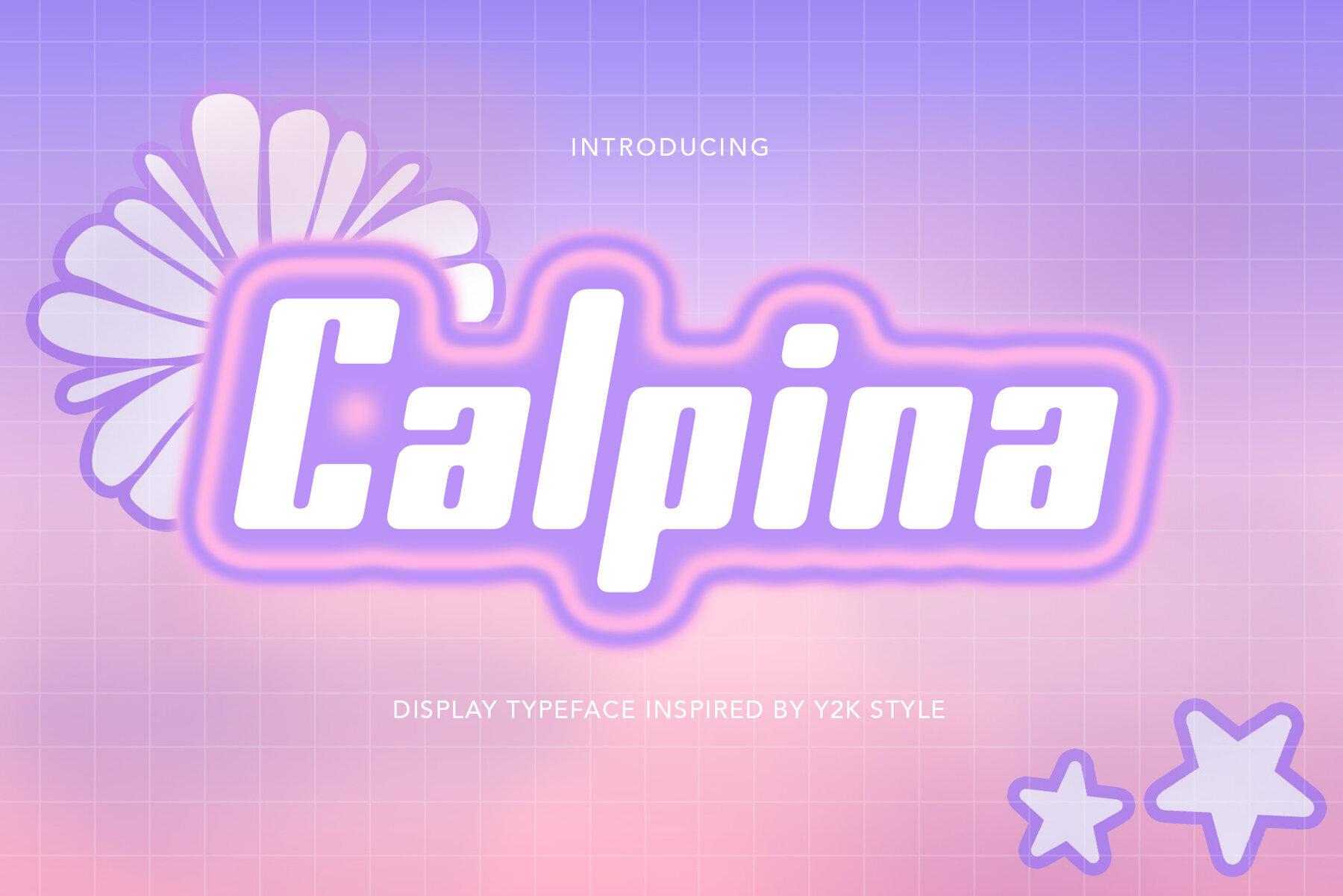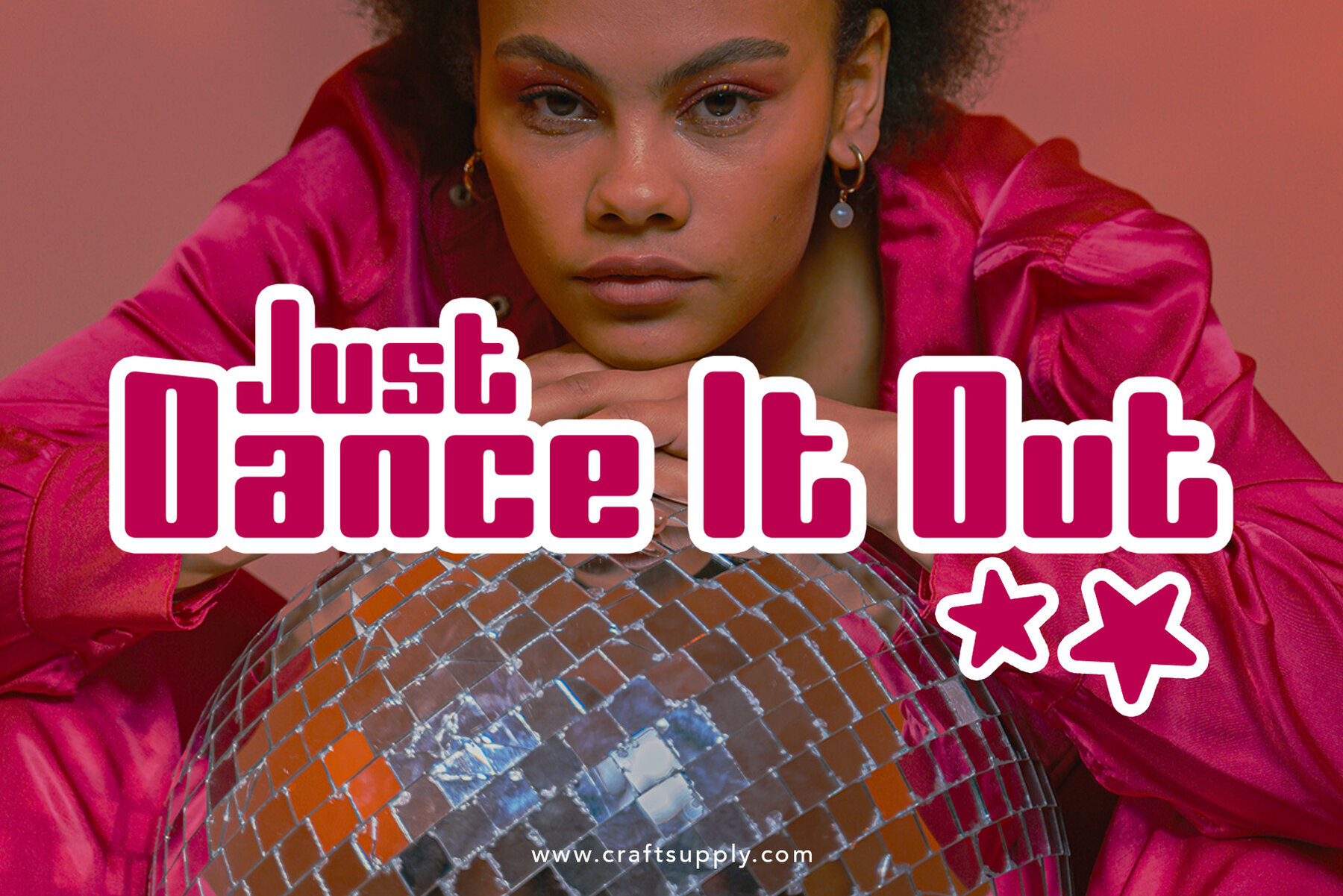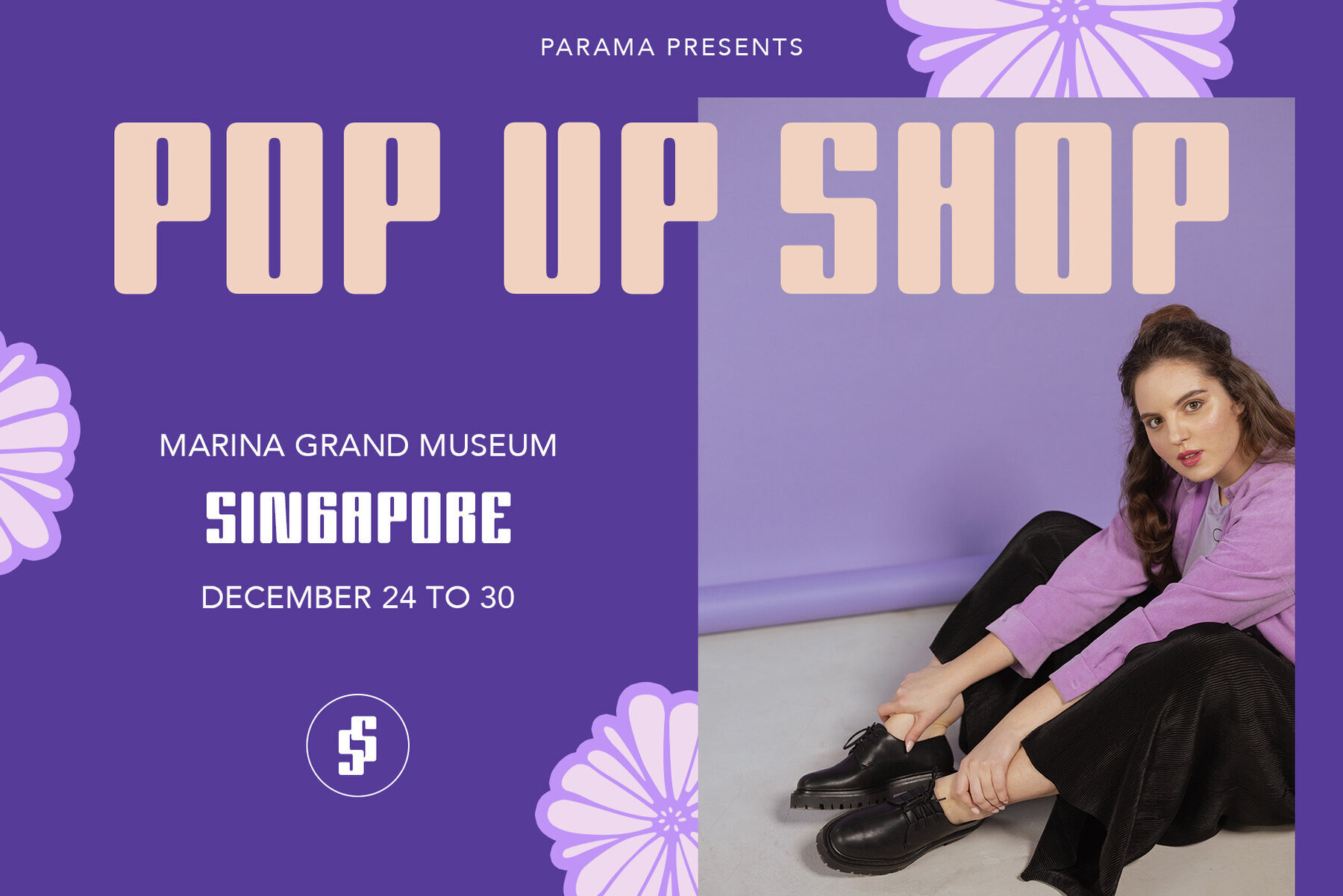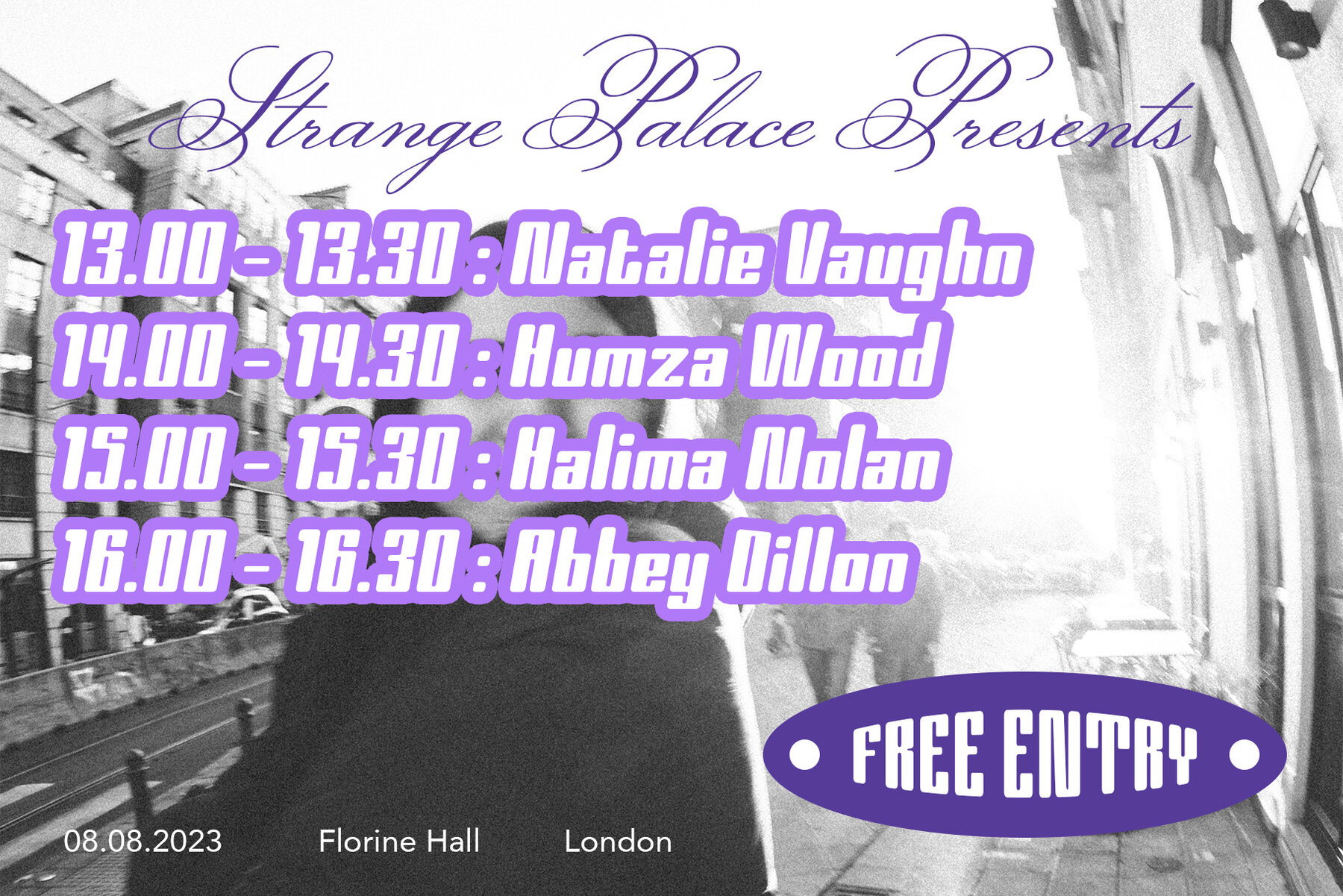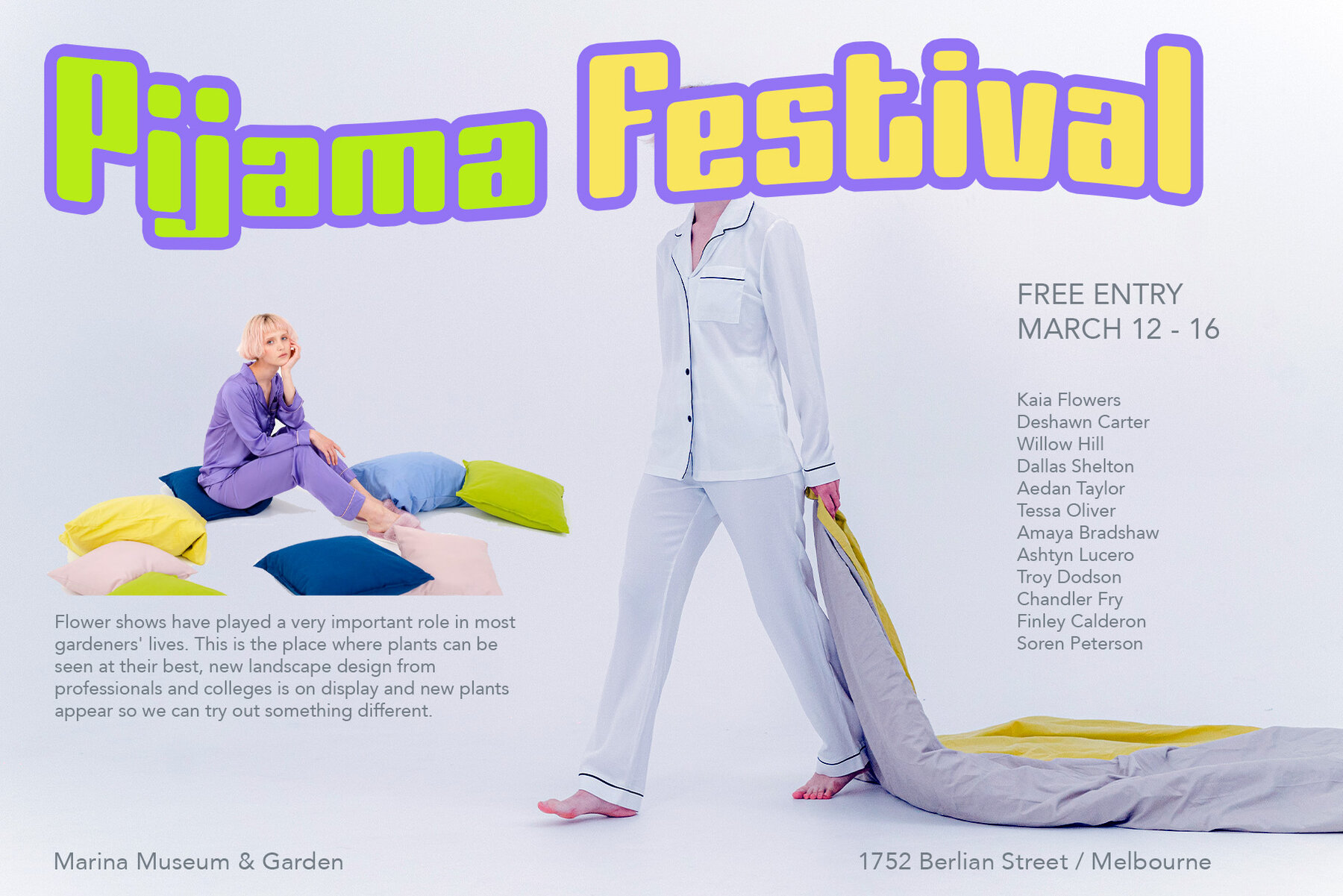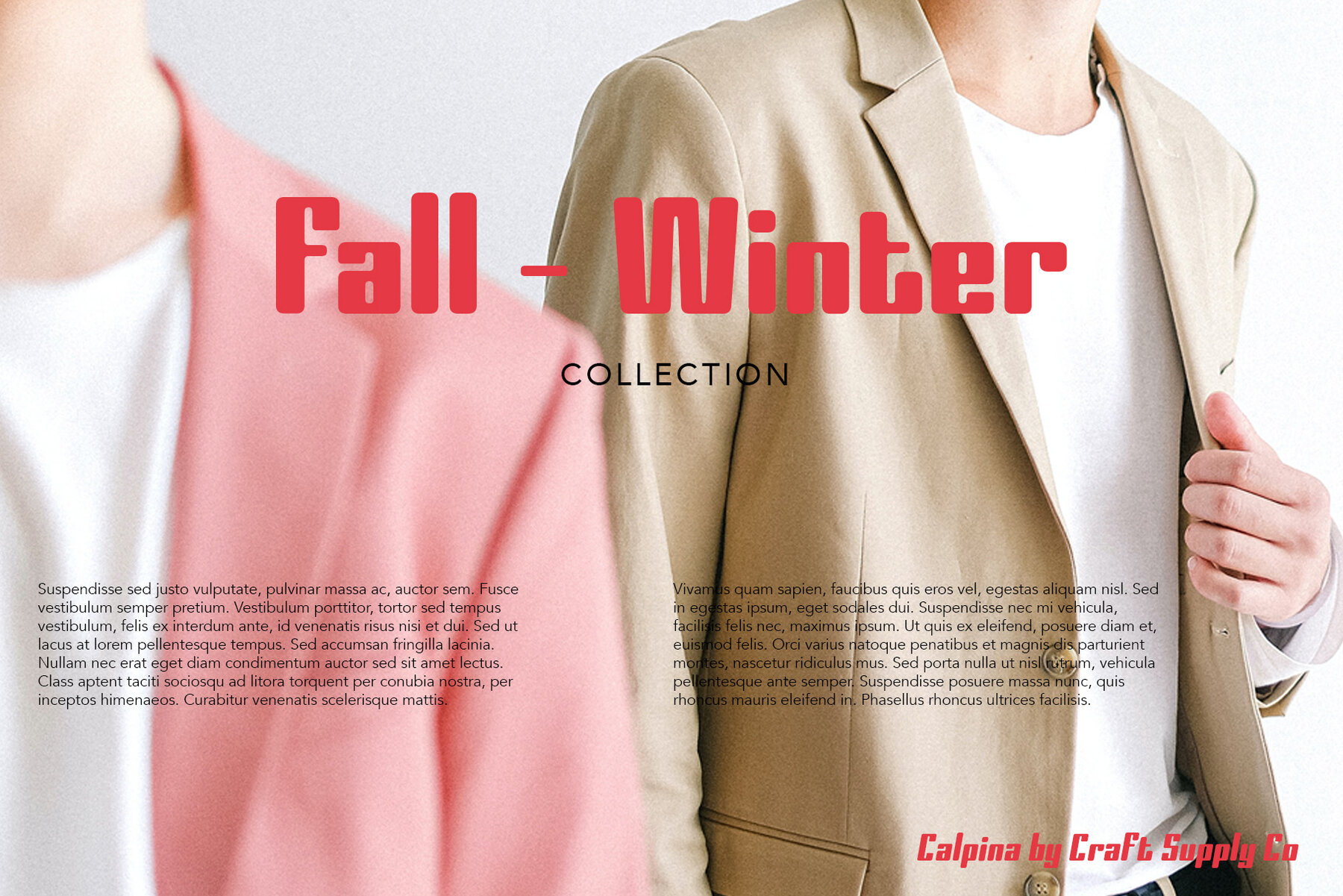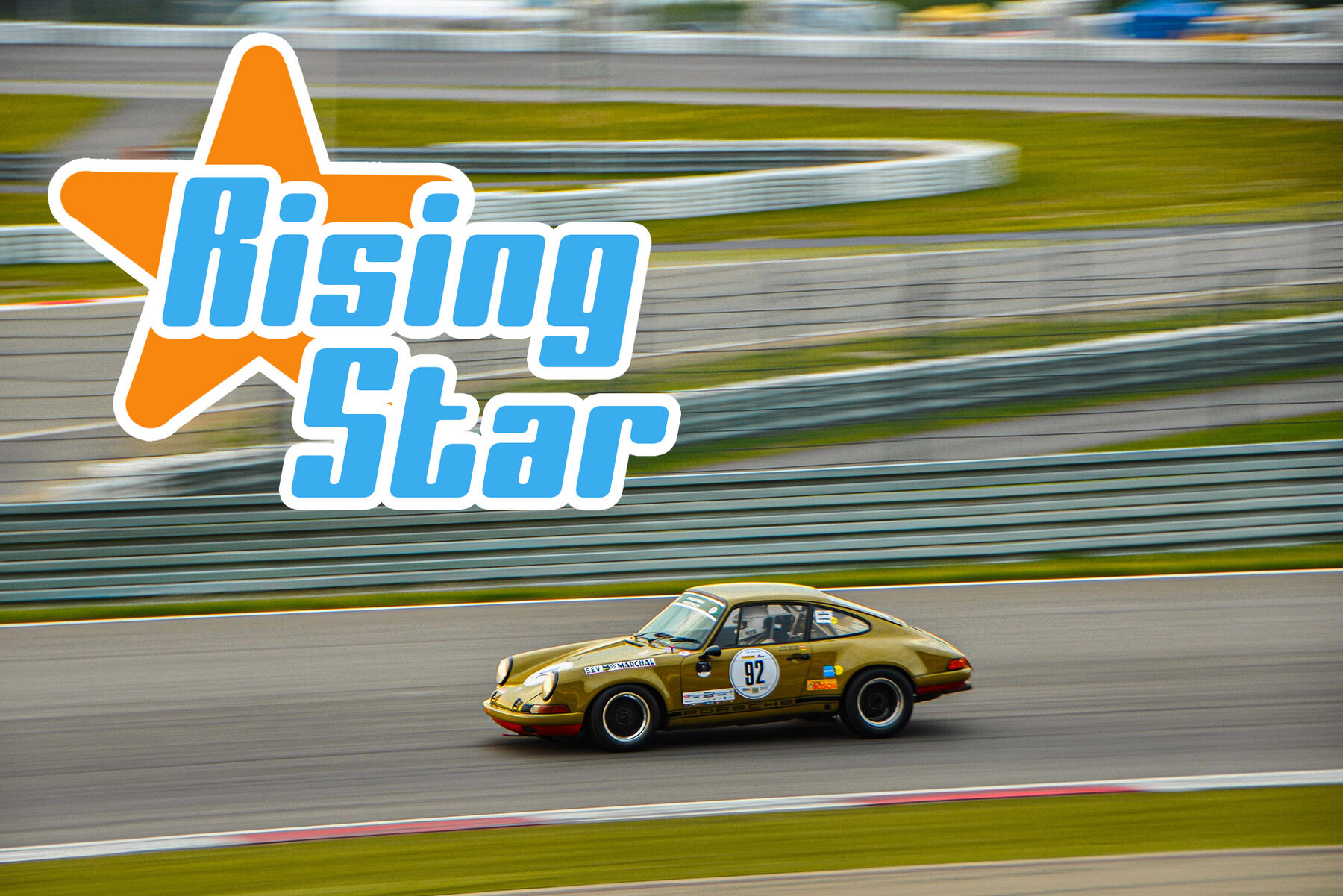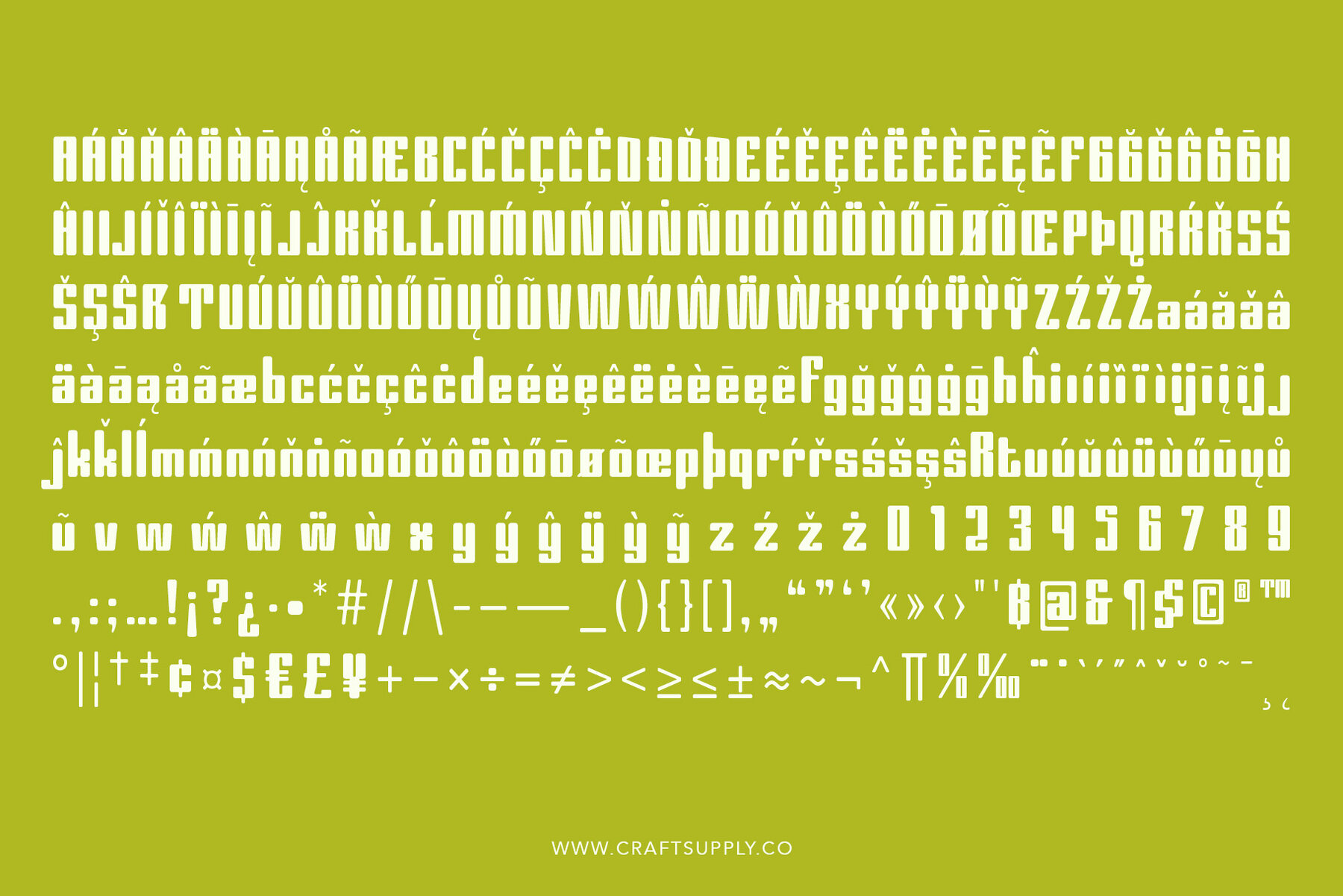
Calpina Font
Introducing Calpina, a bold sans-serif typeface inspired by the nostalgia of the 90s and early 2000s. Calpina is designed to express playfulness and fun, making it a perfect choice for your next design project.
Whether you're creating a greeting card, package design, brand identity, DIY project, book title, poster, vintage design, or any other design project, Calpina is the typeface you need to make your work look pretty and trendy.
With Calpina, you'll get two font styles: Calpina Regular and Calpina Italic. Both styles feature uppercase and lowercase letters, numerals and punctuation marks, multilingual characters with accents, and PUA encoding. All fonts come in OTF and TTF formats, so you don't need any special software to use them.